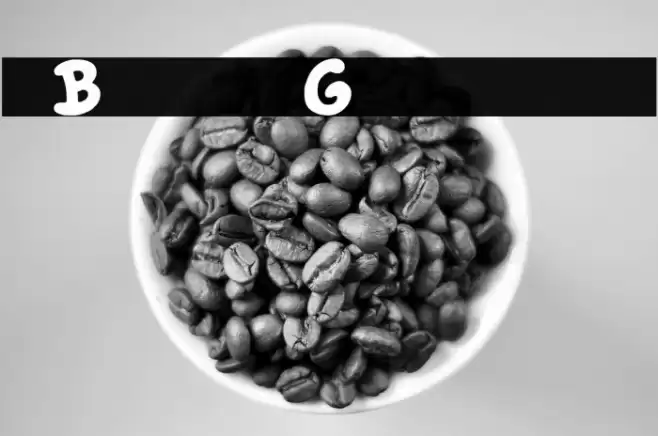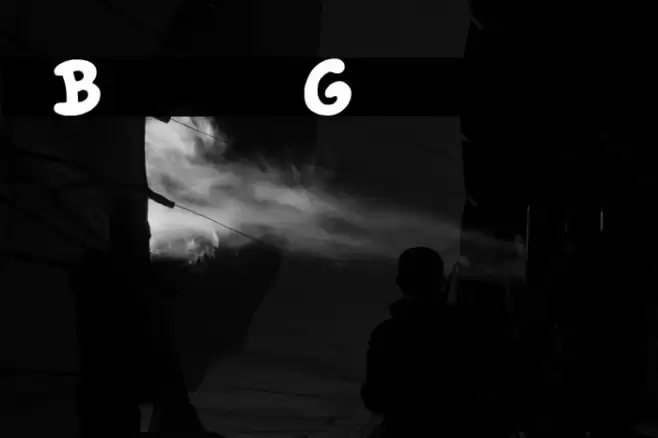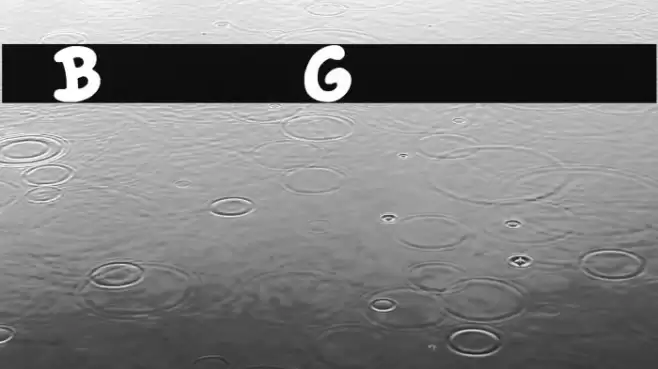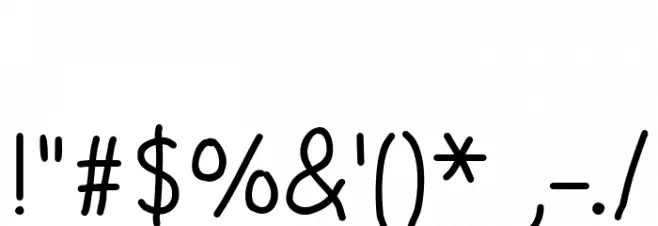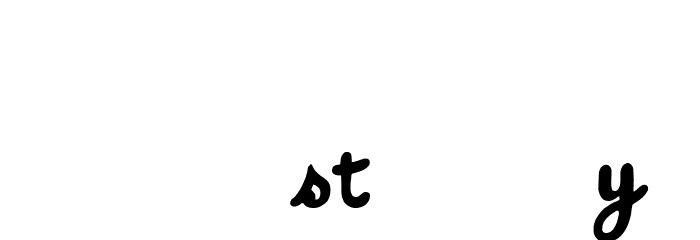
Little Miss Cursive Medium Font
Little Miss Cursive Medium Description
This playful and whimsical font features a handwritten style with a smooth, flowing appearance. The characters are rounded and slightly irregular, giving it a casual and friendly feel. The uppercase letters are bold and prominent, while the lowercase letters maintain a consistent flow, enhancing the cursive nature of the font. The special characters are creatively integrated, maintaining the overall playful aesthetic. This font is perfect for projects that require a personal touch or a sense of fun and creativity.
A playful, handwritten cursive font with a whimsical and friendly style from Uncategorized fonts.
- Font: Little Miss Cursive Medium
- Proposed Projects: Ideal for children's books, greeting cards, playful branding, and creative invitations.
- Overall Style: Playful
- Use Case: Logos, Invitations, Greeting Cards